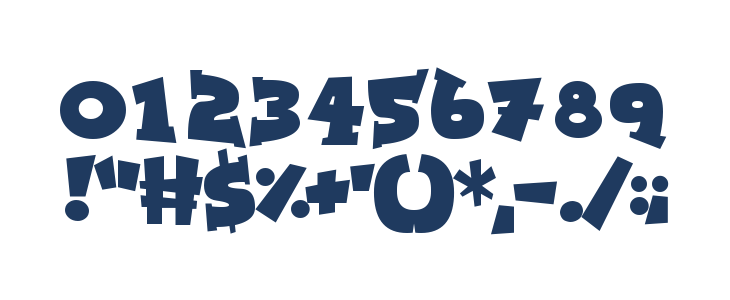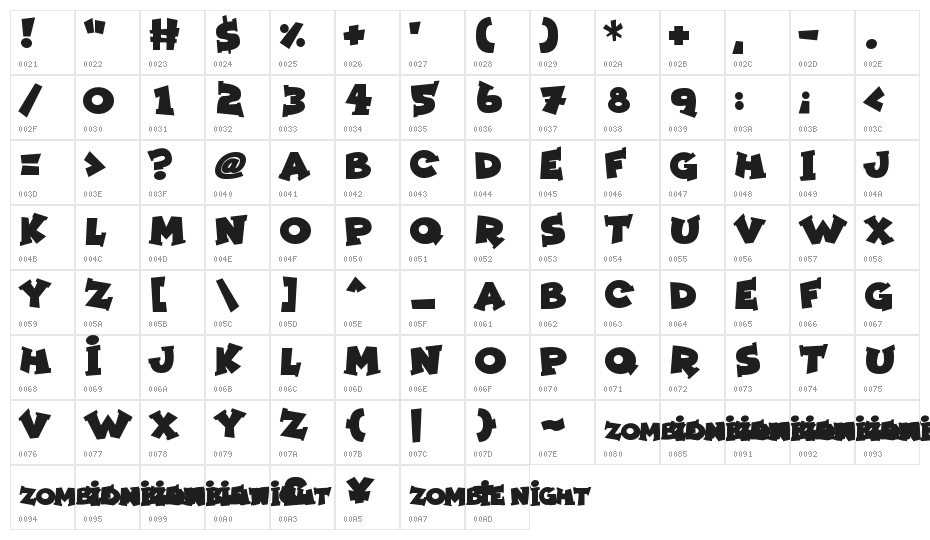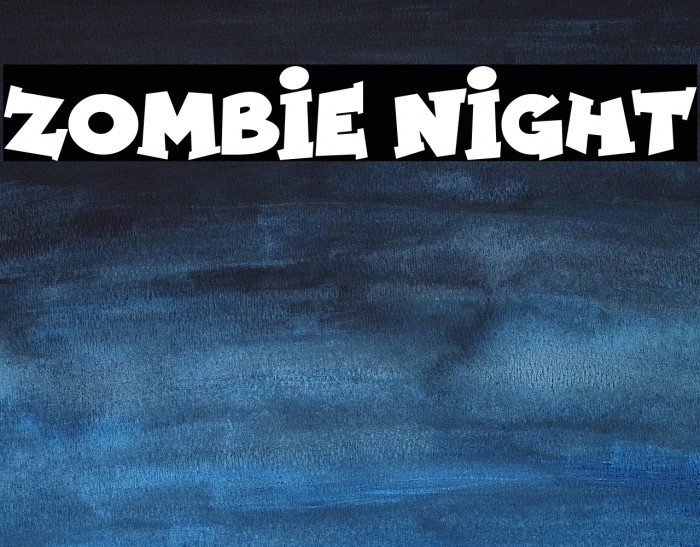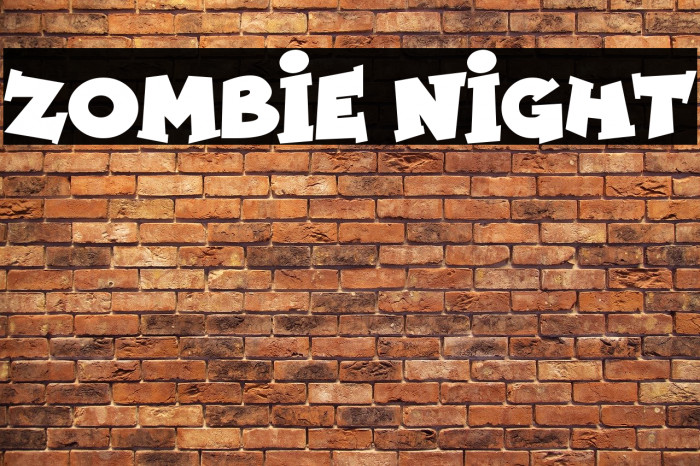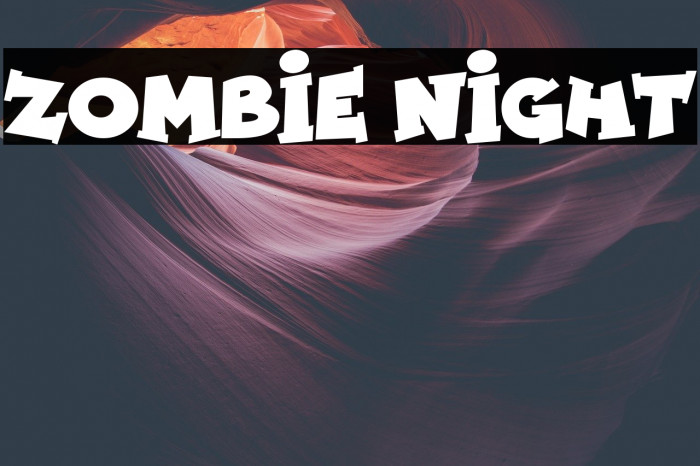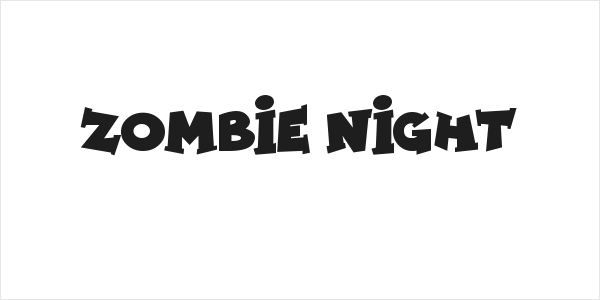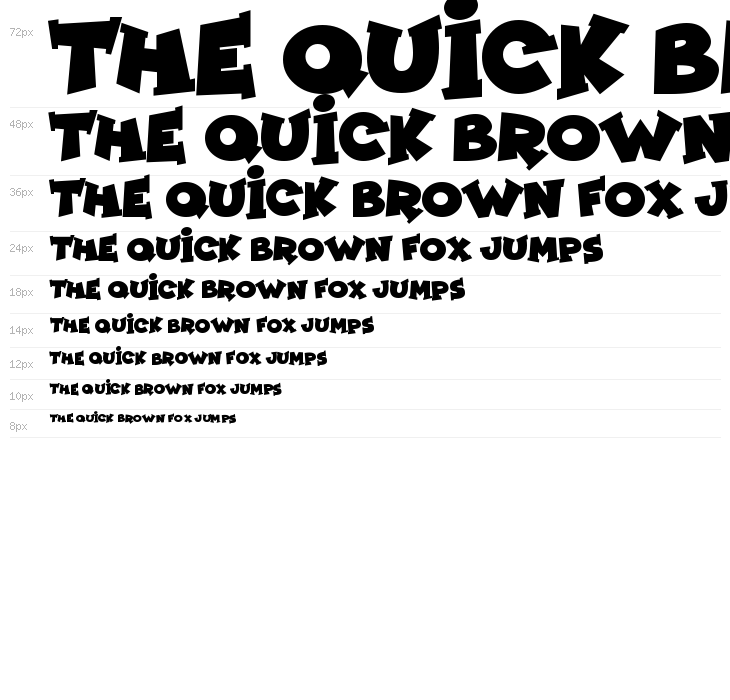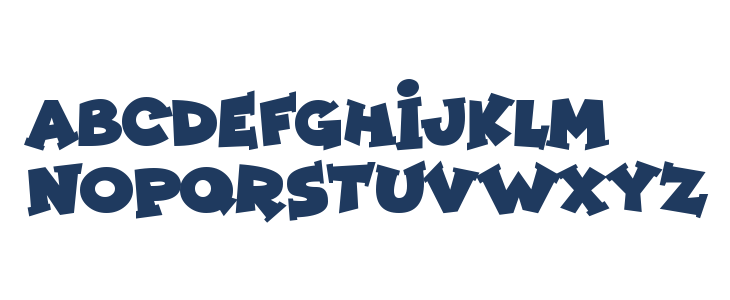
Zombie Night Font
Zombie Night Description
This font features a bold and playful design with a quirky, cartoonish style. The letters are characterized by irregular shapes and exaggerated angles, giving them a dynamic and energetic appearance. The uppercase and lowercase letters maintain a consistent style, with thick strokes and a slightly uneven baseline that adds to the whimsical feel. The numbers and special characters follow the same playful theme, making the font suitable for creative and informal projects. Its boldness ensures high visibility, making it ideal for eye-catching designs.
| Overall Style | Playful, Cartoonish, Energetic |
| Use Case | Headlines, Posters, Logos |
| Proposed Projects | Perfect for children's books, comic strips, Halloween-themed designs, party invitations, and playful branding. |